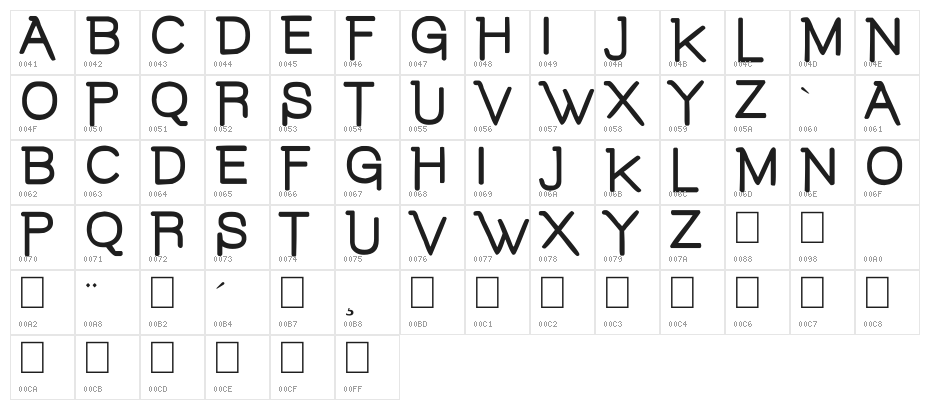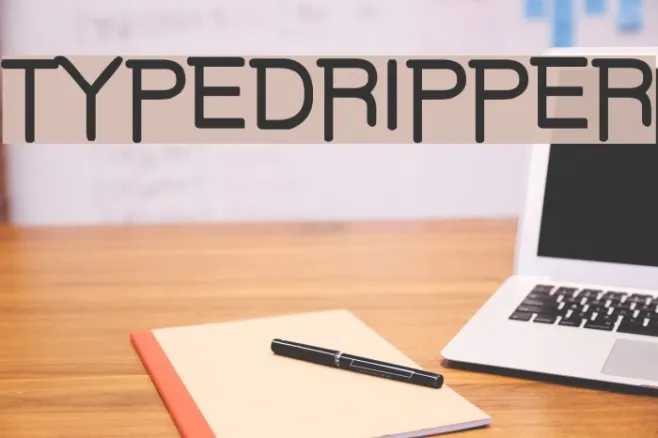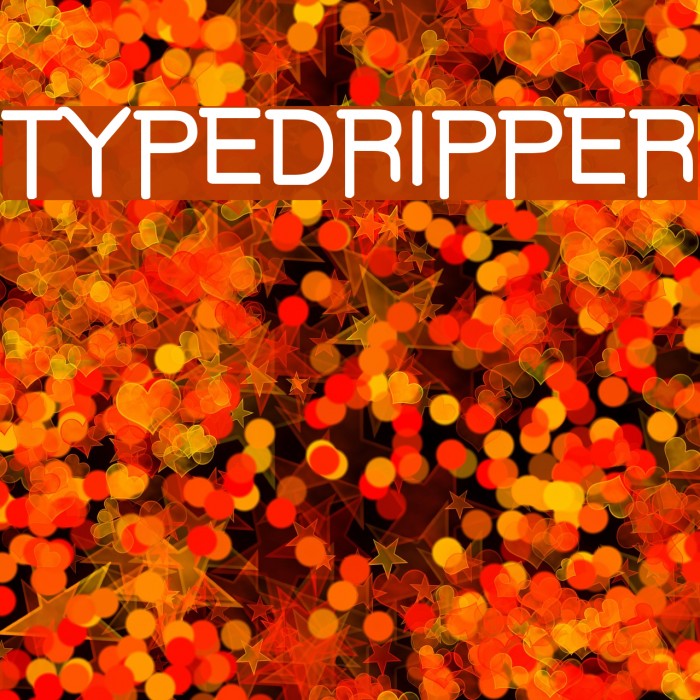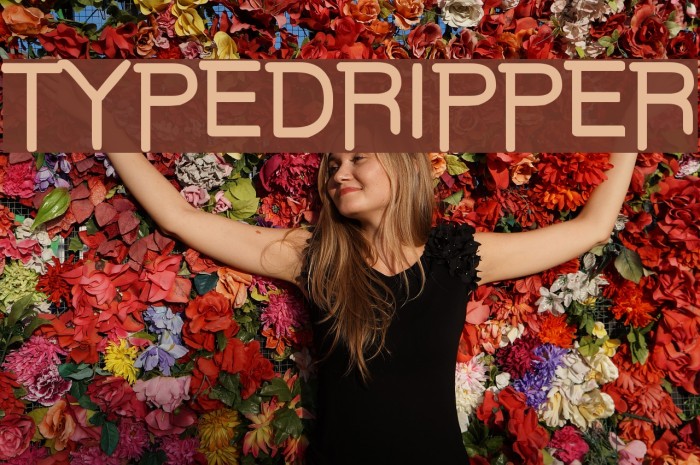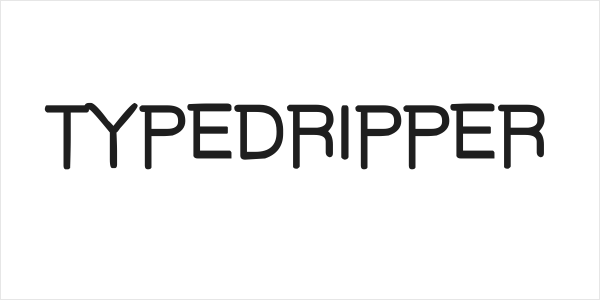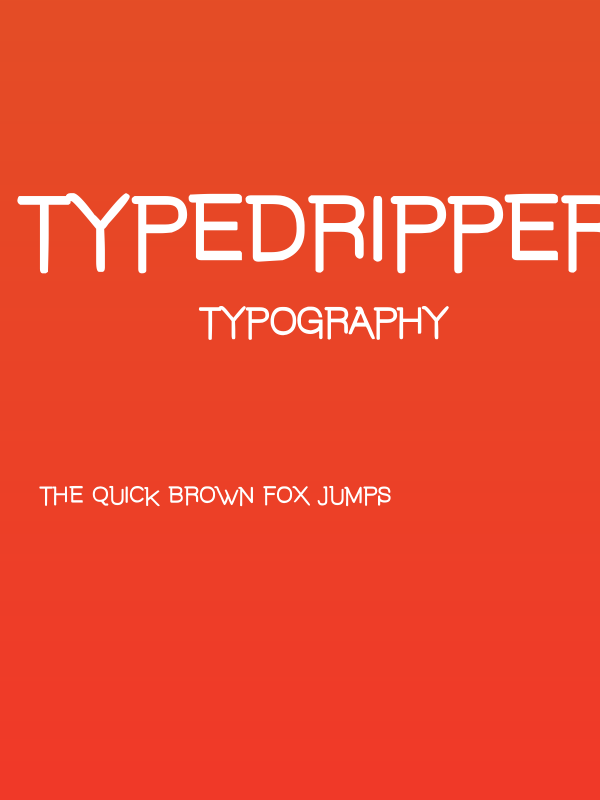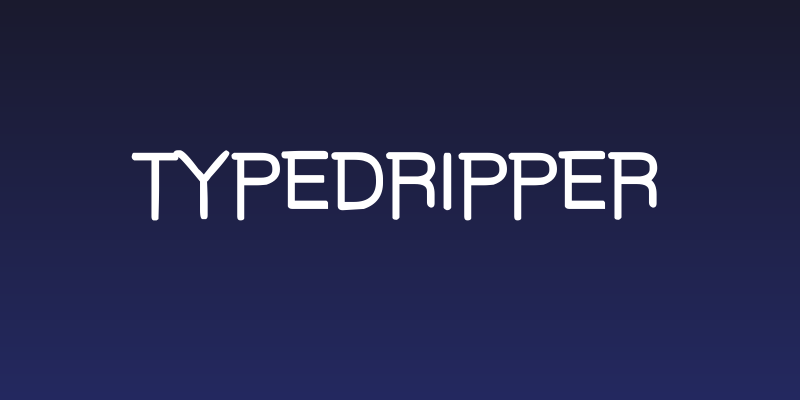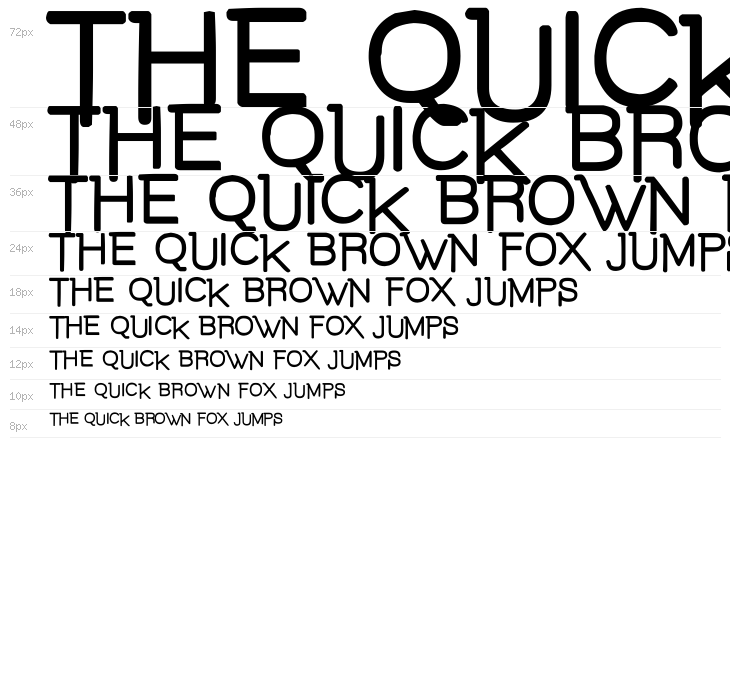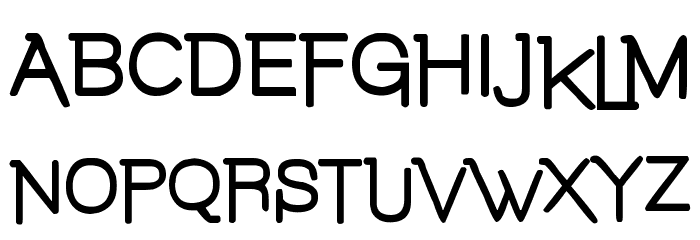
TYPEDRIPPER Font
TYPEDRIPPER Description
This font features a modern, geometric style with clean lines and a uniform stroke width. The characters are constructed with a focus on simplicity and clarity, making them highly legible. The uppercase letters are bold and assertive, while the lowercase letters maintain a consistent design. The font lacks traditional serifs, giving it a contemporary and streamlined appearance. It is versatile and can be used in various design contexts, from digital interfaces to print media. The absence of decorative elements ensures that the font remains functional and easy to read.